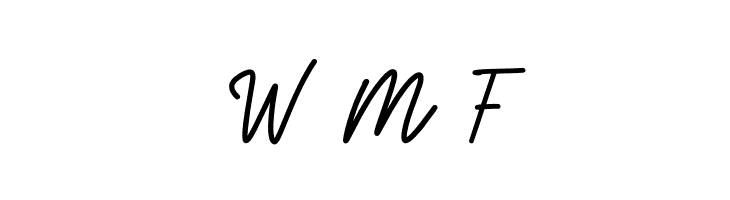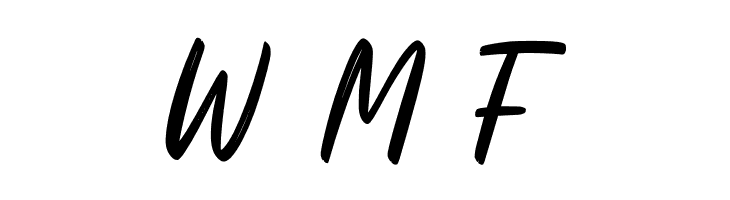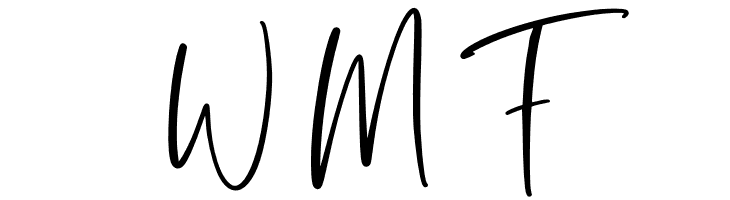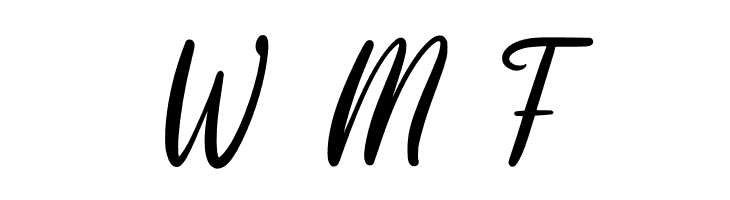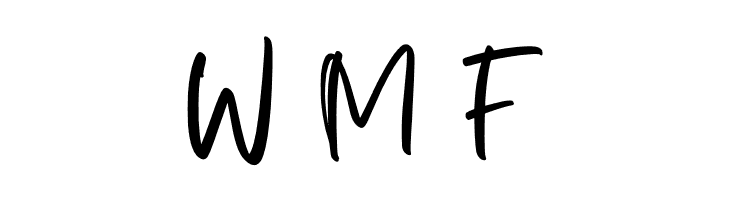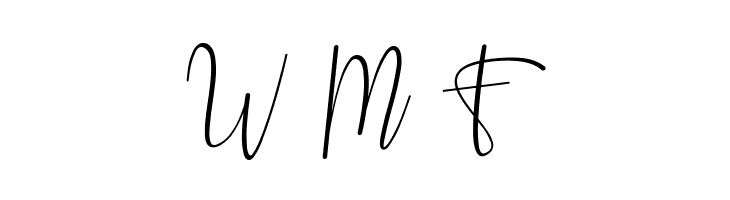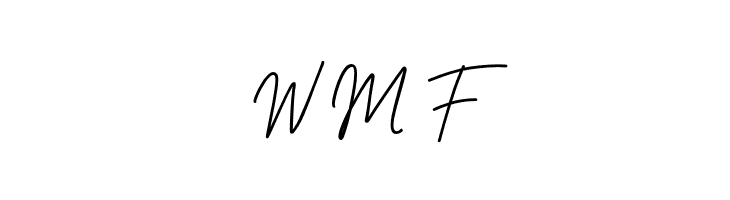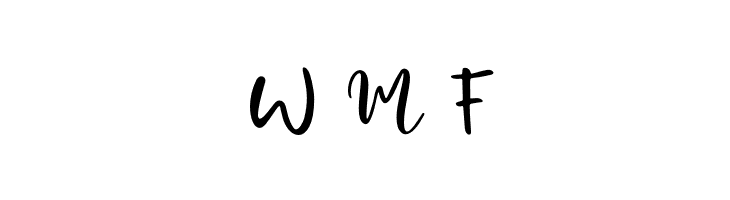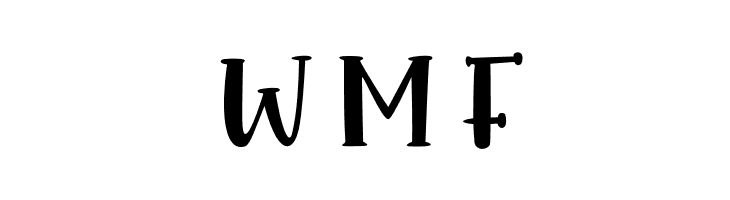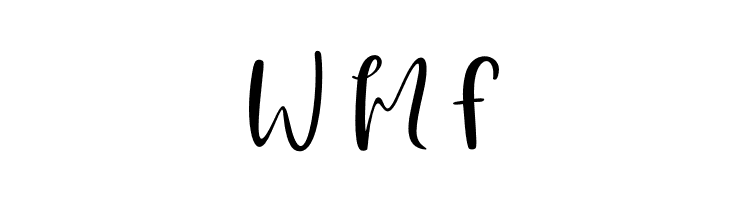
A modern, flowing cursive font with elegant connections and smooth curves.
A dynamic handwritten font with fluid, expressive strokes.
A dynamic, expressive handwritten font with fluid, elongated strokes.
A bold, expressive handwritten font with dynamic strokes and a lively style.
A modern, elegant cursive font with smooth, connected strokes.
A casual and elegant handwritten font with fluid, natural strokes.
A lively, expressive handwritten font with dynamic strokes.
A lively handwritten font with fluid strokes and playful curves.
A fluid and elegant handwritten font with dynamic, flowing lines.
A lively handwritten font with fluid, dynamic strokes and a playful appearance.
A flowing, cursive script font with elegant loops and swashes.
An elegant, flowing script font with intricate loops and swirls.
A stylish and elegant script font with flowing, cursive letterforms.
A lively handwritten font with fluid and dynamic strokes.
A fluid, cursive font with an elegant handwritten style.
A lively and playful script font with fluid, interconnected strokes.
A lively and flowing script font with elegant cursive letterforms.
A bold, energetic script font with flowing strokes and playful curves.
A sophisticated cursive script with elegant loops and flowing connections.
A bold, expressive script font with modern, flowing curves and artistic flourishes.
A bold, expressive handwritten font with fluid strokes and a modern flair.
A modern cursive font with elegant, flowing letterforms and stylish swashes.
A flowing, cursive script with elegant loops and a handwritten feel.
A playful and elegant cursive script with bold, sweeping strokes.
A cursive, handwritten-style font with elegant, flowing strokes.
A playful, elegant script font with a handwritten style.
A bold, playful script font with energetic and expressive characters.
A playful, handwritten script font with bold, fluid strokes.
A lively and expressive handwritten font with fluid, dynamic strokes.
A lively and expressive handwritten font with flowing cursive letterforms.
A sophisticated, elegant handwritten font with fluid, cursive strokes.